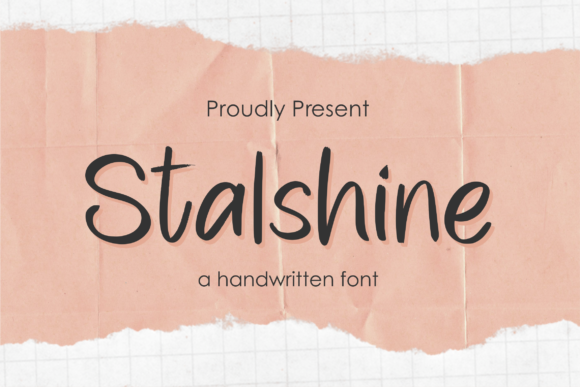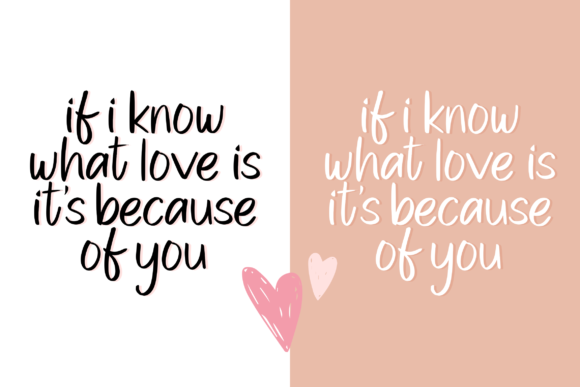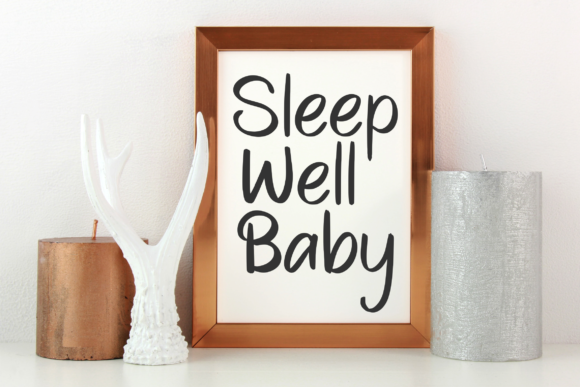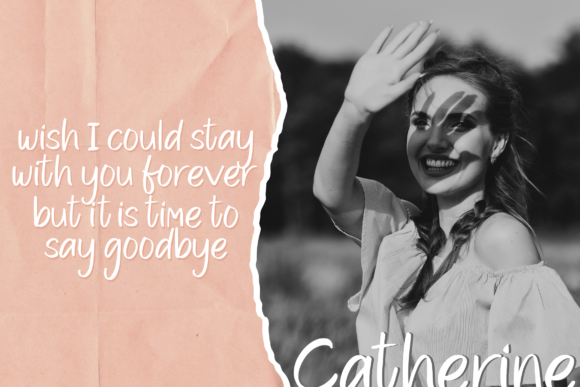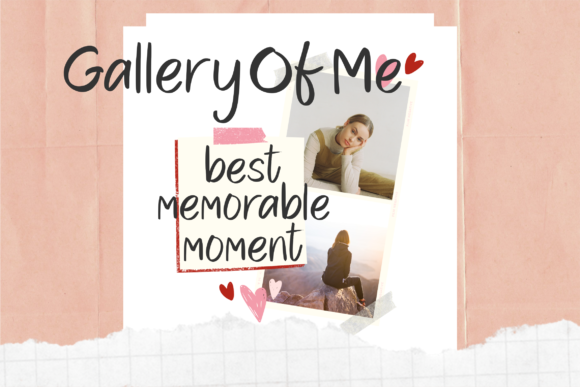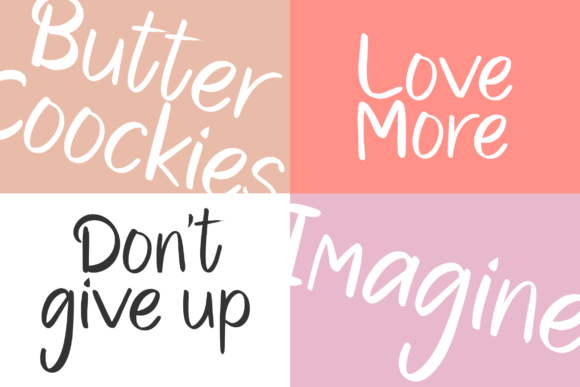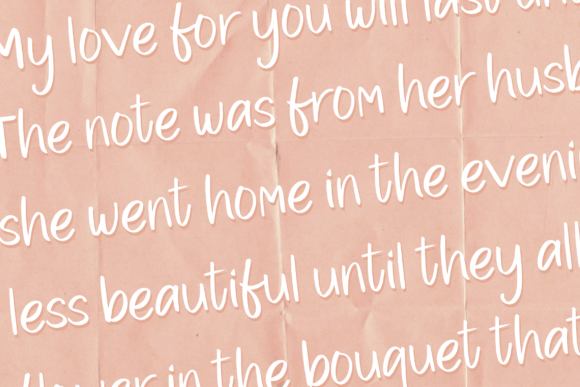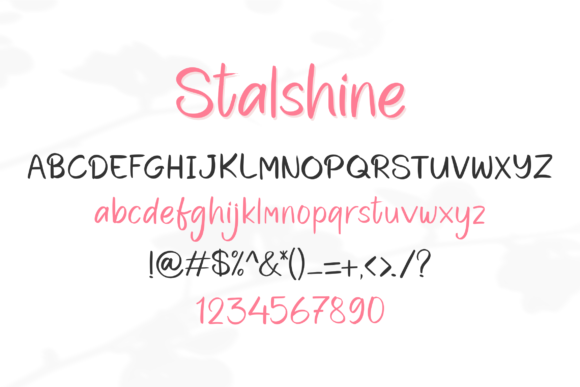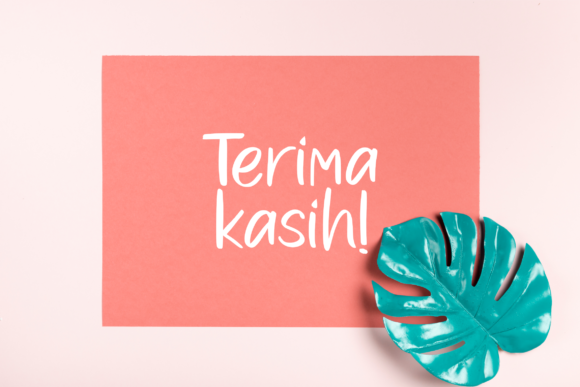
Stalshine Font
About Stalshine Font
Stalshine is an enchanting handwritten font. This versatile script font has a wide spectrum of applications ranging from greeting cards to headlines and is guaranteed to add a romantic feel to your next project.